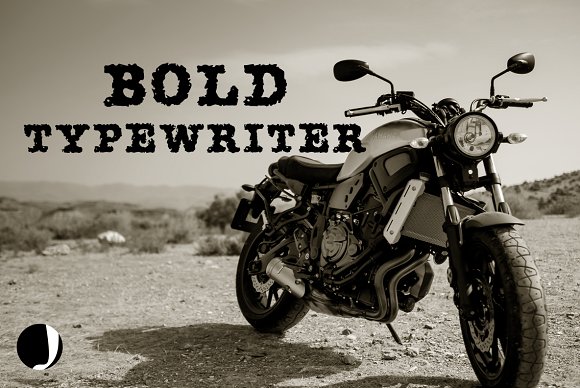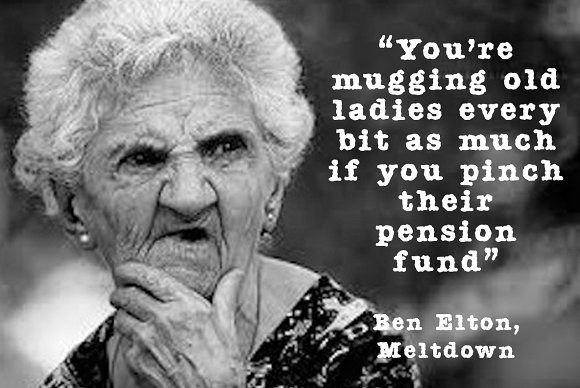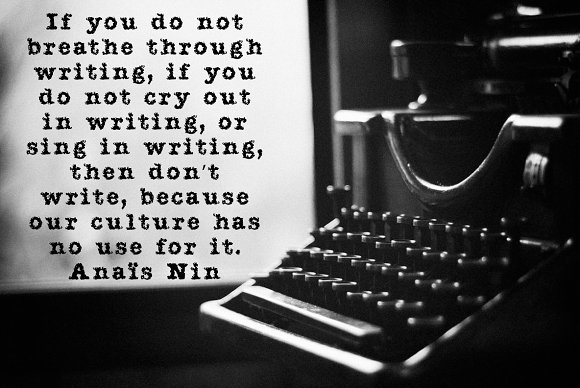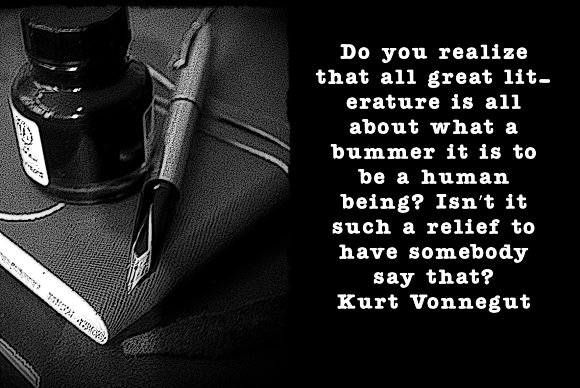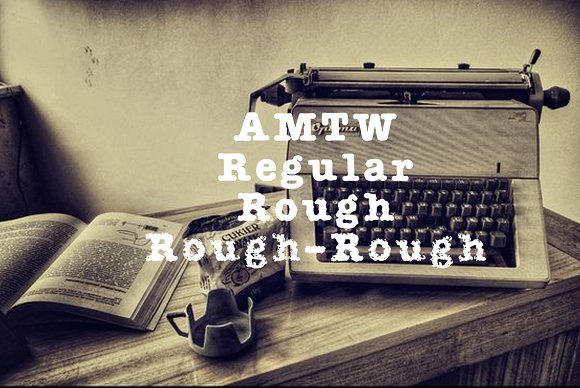
Introducing AMTW Font: A Vintage Typewriter Style for Modern Design
Are you a designer or crafter looking for a unique and nostalgic font to add to your creative projects? Look no further than the AMTW Font, a classic typewriter-style font inspired by old American typewriters. In this article, we’ll explore the features and benefits of the AMTW Font, and how it can elevate your designs and crafts.
The Story Behind AMTW Font
The AMTW Font is a recreation of the classic typewriter fonts found on old American typewriters. With its distressed and worn texture, this font is perfect for designers and crafters who want to add a touch of nostalgia and vintage charm to their work. The font is available in three versions: AMTW Regular, AMTW Rough, and AMTW Rough Rough, each with its own unique character and texture.
Features of AMTW Font
• Classic Typewriter Style: The AMTW Font is designed to mimic the look and feel of old American typewriters, with a distinctive and recognizable style that’s sure to evoke a sense of nostalgia.
• Three Unique Versions: The font is available in three versions: AMTW Regular, AMTW Rough, and AMTW Rough Rough, each with its own unique texture and character.
• Distressed and Worn Texture: The font features a distressed and worn texture, giving it a authentic and vintage look that’s perfect for designers and crafters.
• High-Quality Design: The AMTW Font is designed with high-quality and precision, ensuring that it looks great in any size or application.
Benefits of Using AMTW Font
So why choose the AMTW Font for your design or craft project? Here are just a few benefits of using this unique and versatile font:
• Add a Touch of Nostalgia: The AMTW Font is perfect for designers and crafters who want to add a touch of nostalgia and vintage charm to their work.
• Stand Out from the Crowd: With its distinctive and recognizable style, the AMTW Font is sure to make your design or craft project stand out from the crowd.
• Versatile and Flexible: The font is available in three versions, making it versatile and flexible for a wide range of design and craft applications.
Using AMTW Font in Your Design or Craft Project
So how can you use the AMTW Font in your design or craft project? Here are just a few ideas to get you started:
• Digital Designs: Use the AMTW Font in your digital designs, such as social media graphics, blog posts, and website headers.
• Print-on-Demand: Use the font in your print-on-demand designs, such as t-shirts, mugs, and other products.
• Crafting: Use the font in your crafting projects, such as scrapbooking, card making, and journaling.
• Sign Making: Use the font to create vintage-style signs and posters for your business or home.